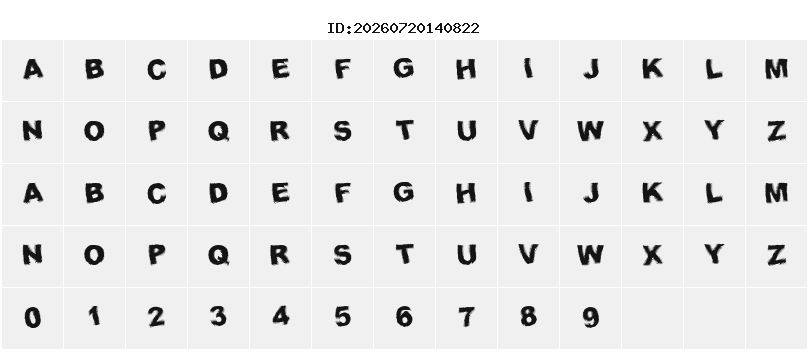
• Font Name: Fresnel
About Fresnel.ttf
Fresnel.ttf is a modern, elegant sans-serif font designed for ultimate readability and visual harmony. Perfect for branding, headlines, web design, and print materials.